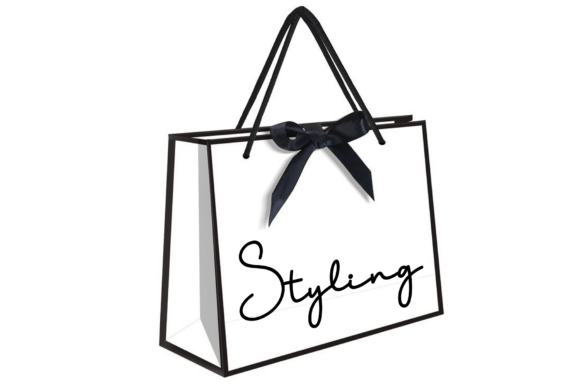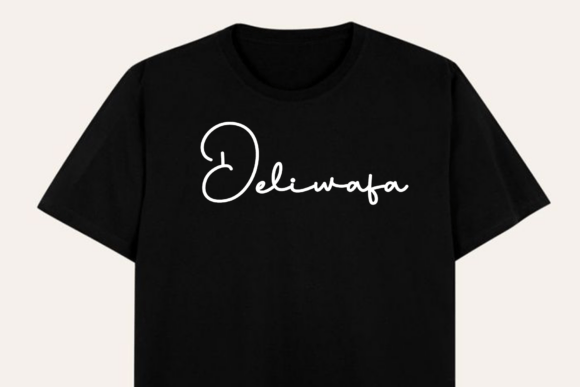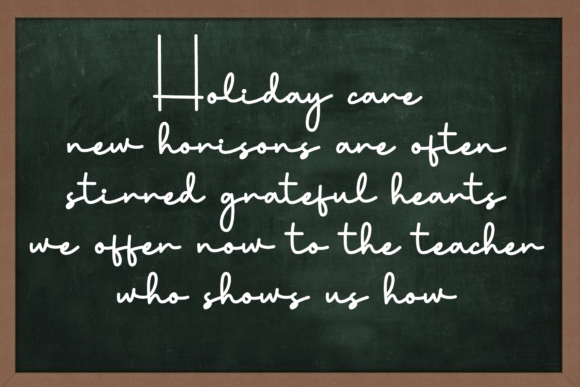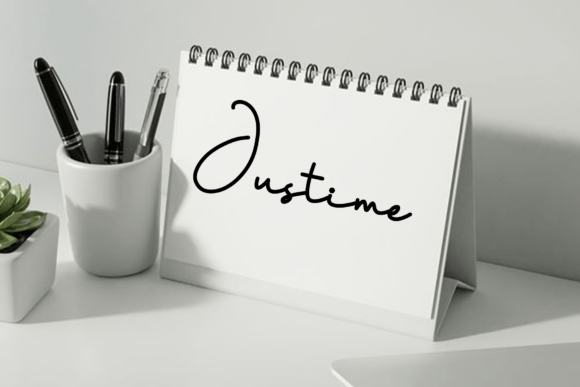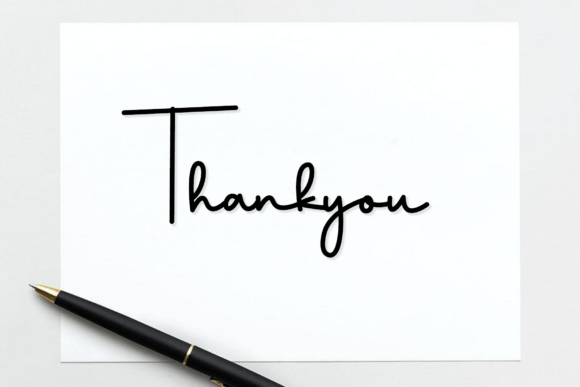
Unleashing the Magic of Handwritten Design
Remember the thrill of designing a birthday card for a loved one? The rush of creativity, the excitement of bringing a personal touch to the celebration? It’s moments like these that remind us why we love design. But what if you could infuse that same magic into your everyday work? Enter the Birthday Deluxs Font, a delightful handwritten font that’s about to become your new best friend.
This charming font is perfect for creating eye-catching logos, branding, and quotes that will make your designs stand out. With its unique and beautiful touch, every letter comes alive, making your work truly special. As a designer, you know how valuable it is to have the right tools at your disposal. That’s why the Birthday Deluxs Font is a must-have in your toolkit – it’s the perfect way to add a personal touch to your designs and make them truly unforgettable.
- Unique Characteristics: Includes decorative elements, swashes, and flourishes for a celebratory feel
Birthday Deluxs Font Review
Overall, I think Birthday Deluxs Font is a fun and playful font that can add a pop of personality to your designs. ✨ The swashes and flourishes add a touch of whimsy and make it perfect for celebratory occasions. I particularly like how the font works well in large sizes and can be used for headings and titles.
- ✨ Unique and creative design that stands out from more generic fonts
- ✨ Works well in bold and italic weights, adding depth and variety to your designs
- ✨ Suitable for a wide range of design projects, from social media to print materials
- ⚠️ The font may be too ornate for some designs, and can be overwhelming if used in large quantities
- ⚠️ Some characters may not be easily readable at smaller font sizes
Overall, I would recommend Birthday Deluxs Font for designers who want to add a touch of fun and personality to their designs. While it may not be suitable for all projects, it’s a great choice for celebratory occasions and can help you stand out from the crowd.
The Birthday Deluxs Font is ideal for creating festive and playful designs, such as birthday invitations, party banners, and greeting cards.
For optimal results, use the font in conjunction with bold and bright colors to create a lively atmosphere.